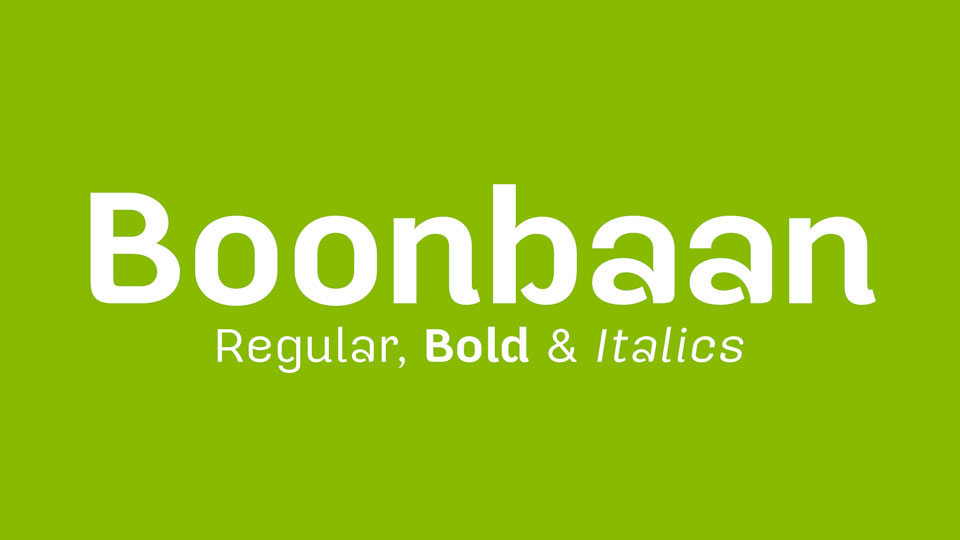
Download BoonBaan typeface, a Thai-Lao font family in two weights and their Italics that looks like Thai and Lao characters as well. BoonBaan font looks ideal for authentic projects.
Designer: Sungsit Sawaiwan